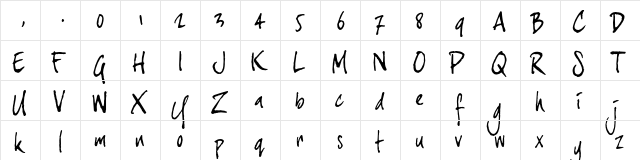
joeHand 3 Regular
| Foundry | J O E B O B graphics 2006 |
| Designer | J O E B O B graphics / Joe van der Ham |
Design Context for joeHand 3 Typeface
joeHand 3 flows with the natural rhythm of handwritten lettering, making it ideal for designs that call for warmth and personal expression.
Font Pairing: Combine joeHand 3 with a simple geometric sans for maximum contrast — the tension between flowing curves and clean structure is a classic typographic pairing.
Pro Tip: Use joeHand 3 for short runs of text — names, titles, or taglines. Extended body copy in script faces tires the eye quickly.